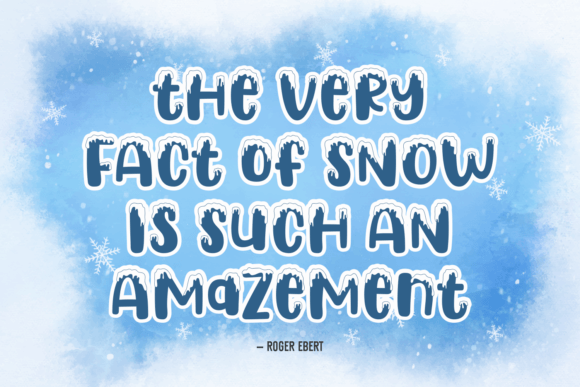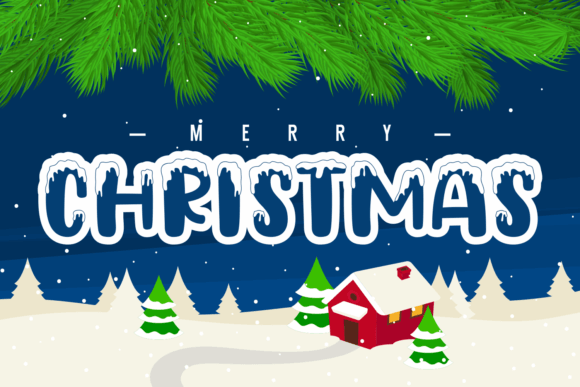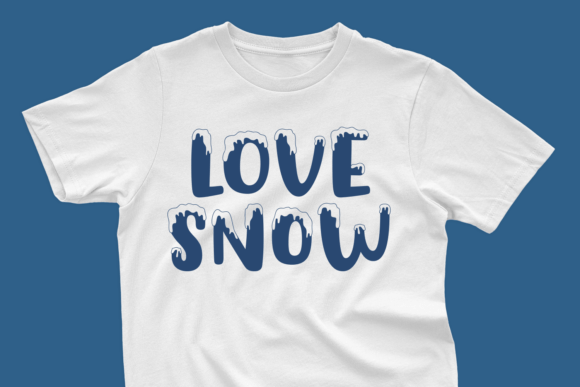
Introduction to Likes Snow Font
Likes Snow is a gorgeous decorative font, that fits incredibly well to this time of the year.
Key Features of Likes Snow Font
Why Choose Likes Snow Font?